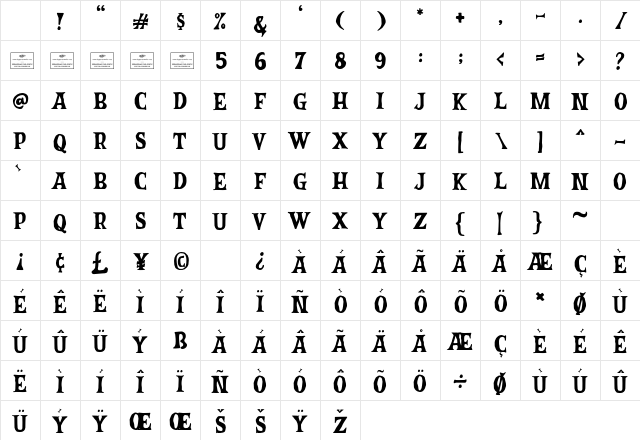
Complete Malicious Moonlight Regular glyph index. Displaying only characters natively supported by Malicious Moonlight Regular font.
Malicious Moonlight is a composed and adaptable typeface that performs quietly and consistently across a wide range of design contexts. Its slender proportions lend an understated elegance to any composition.